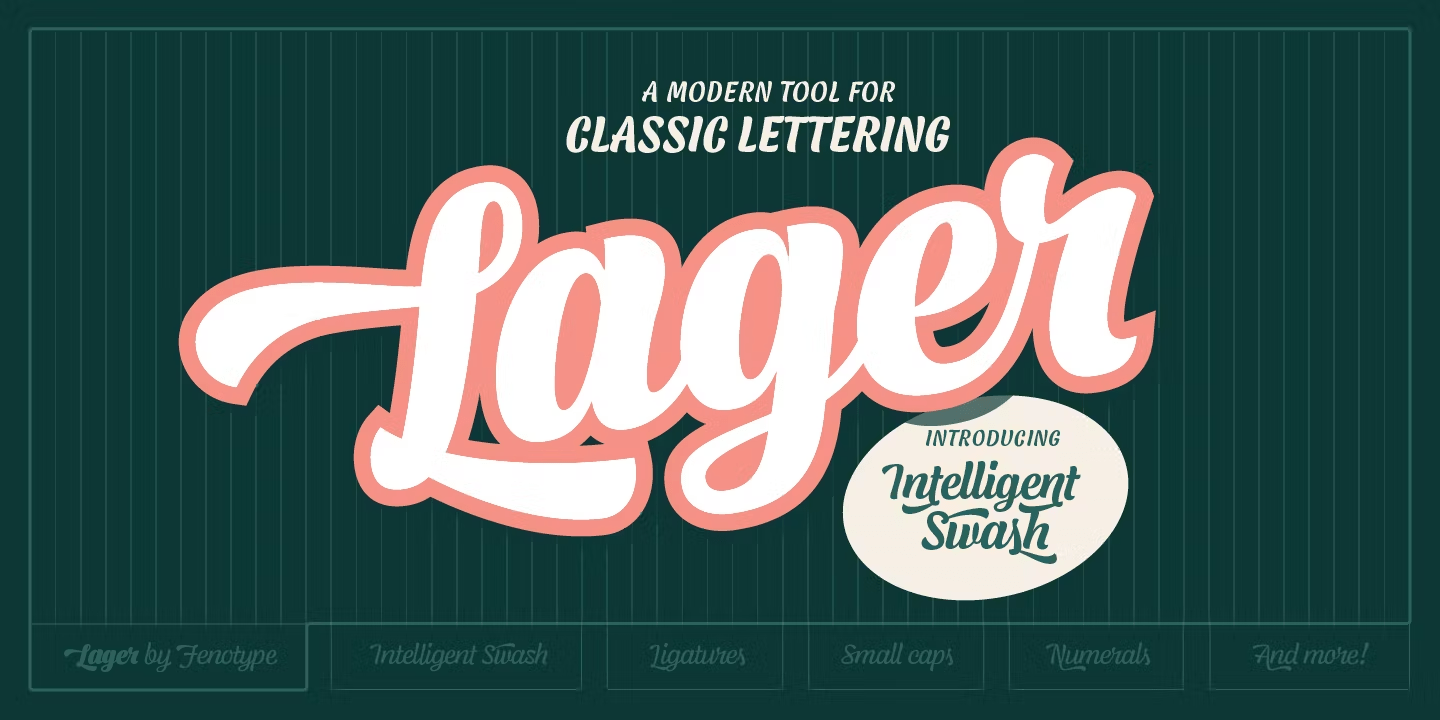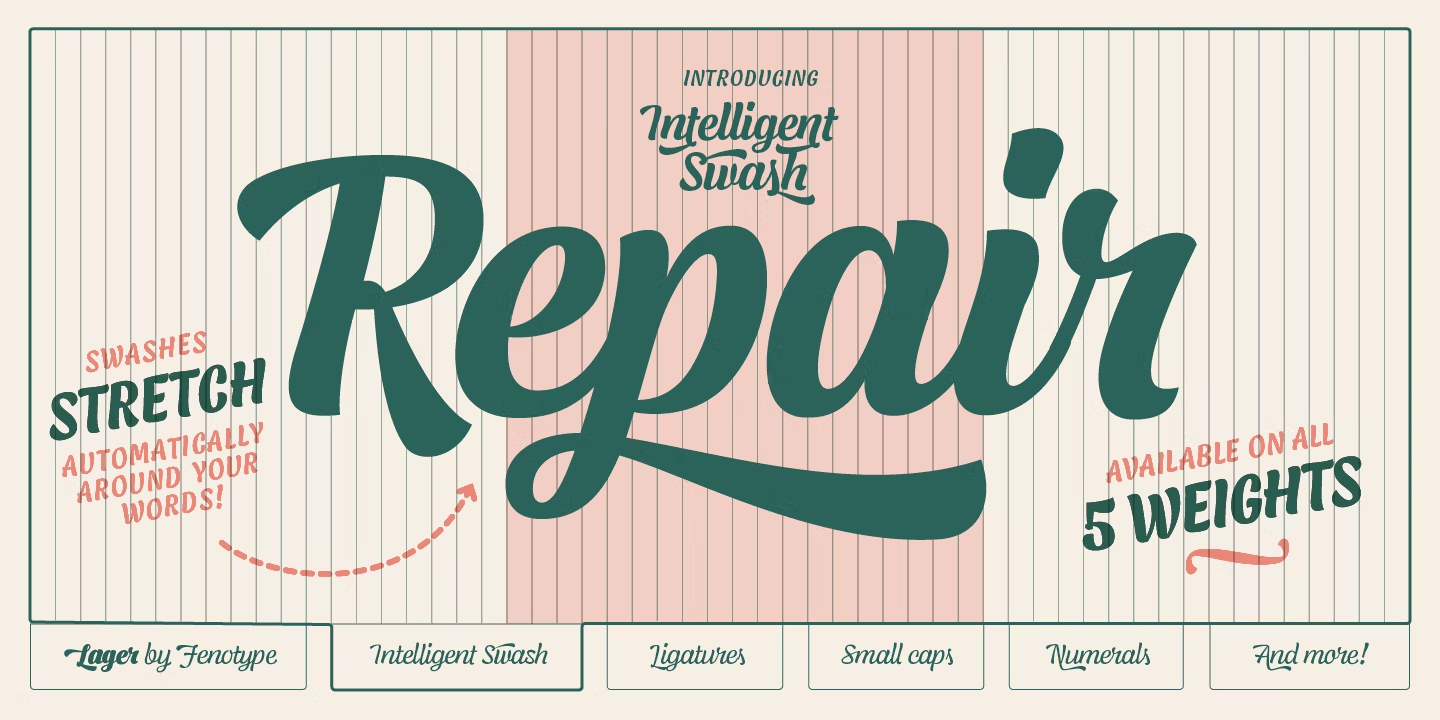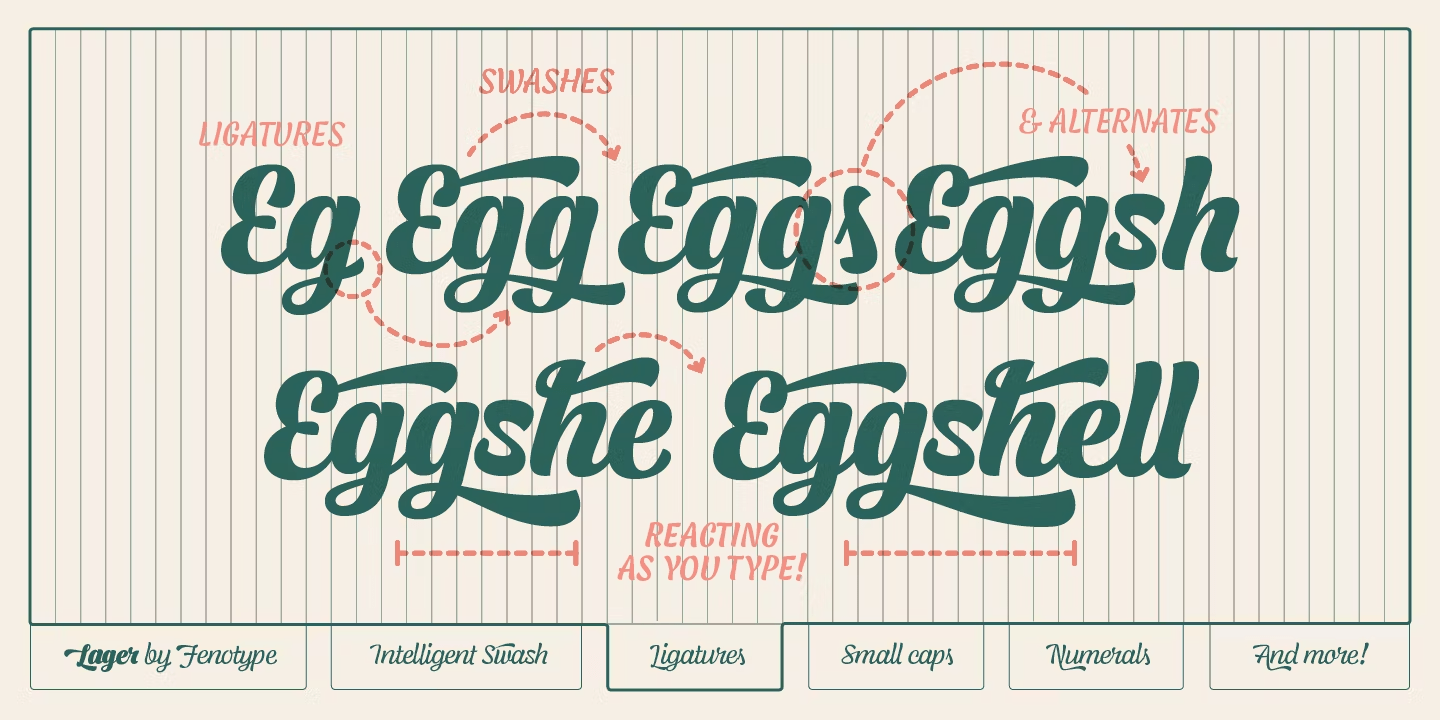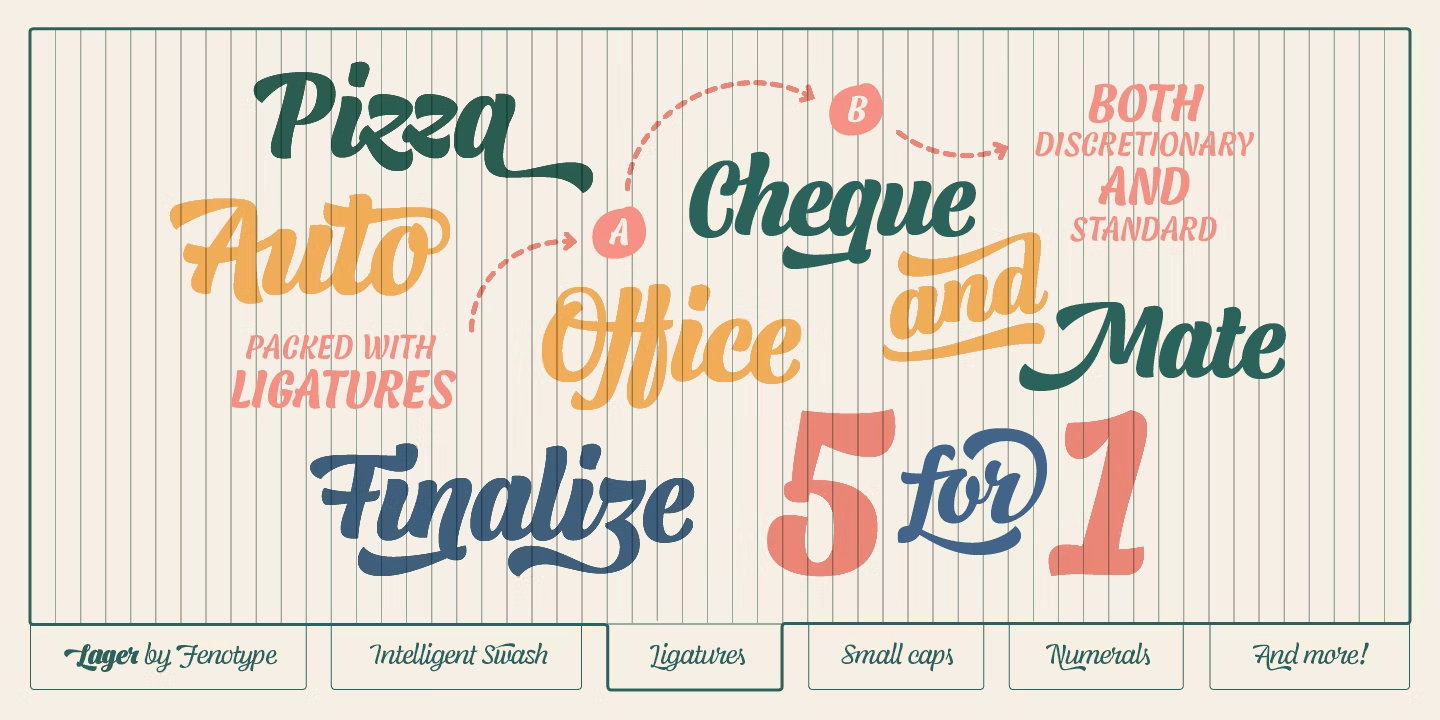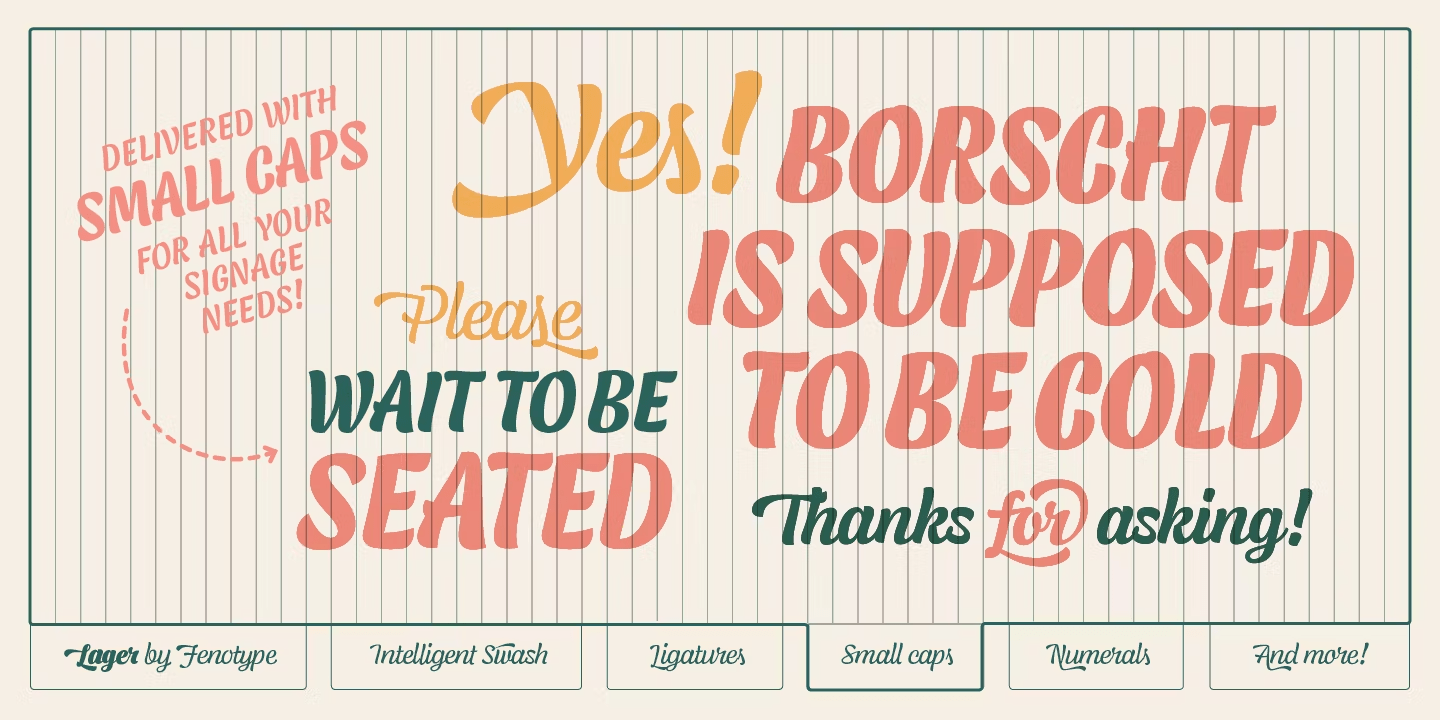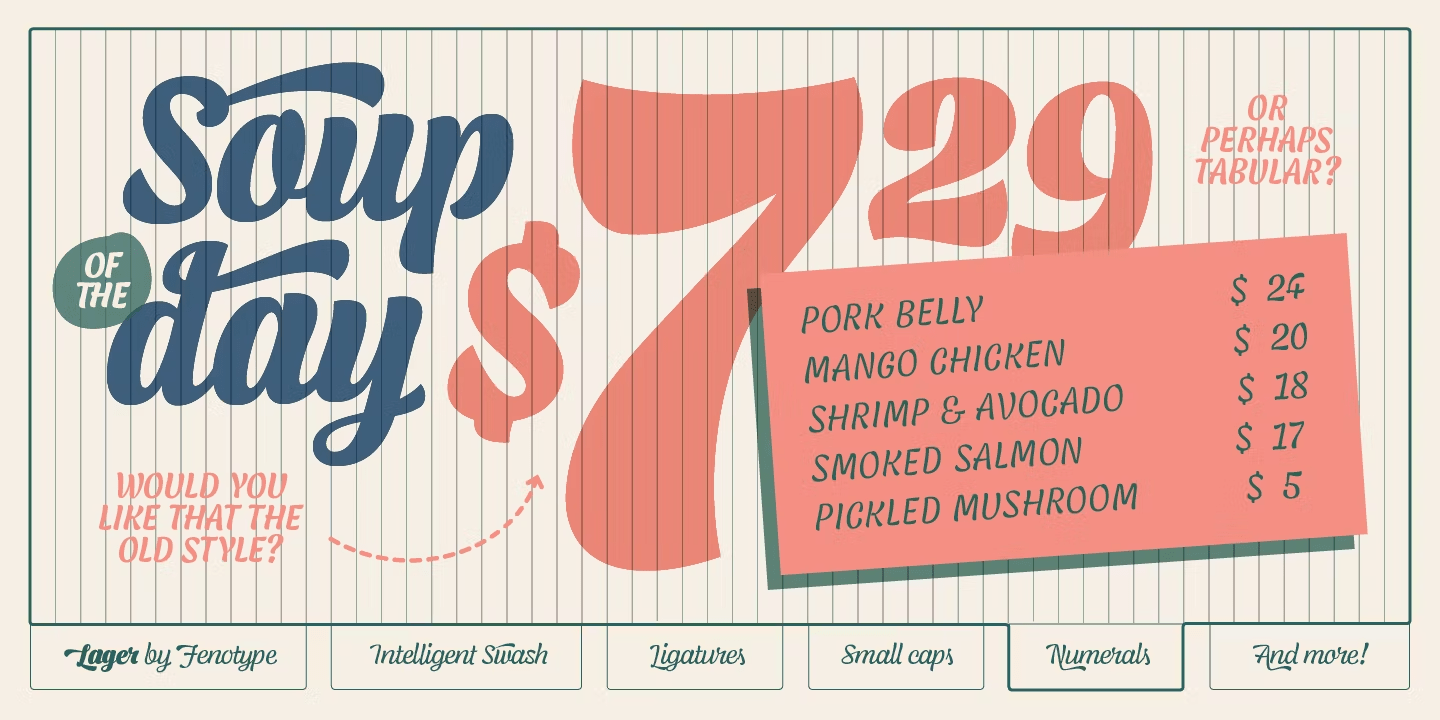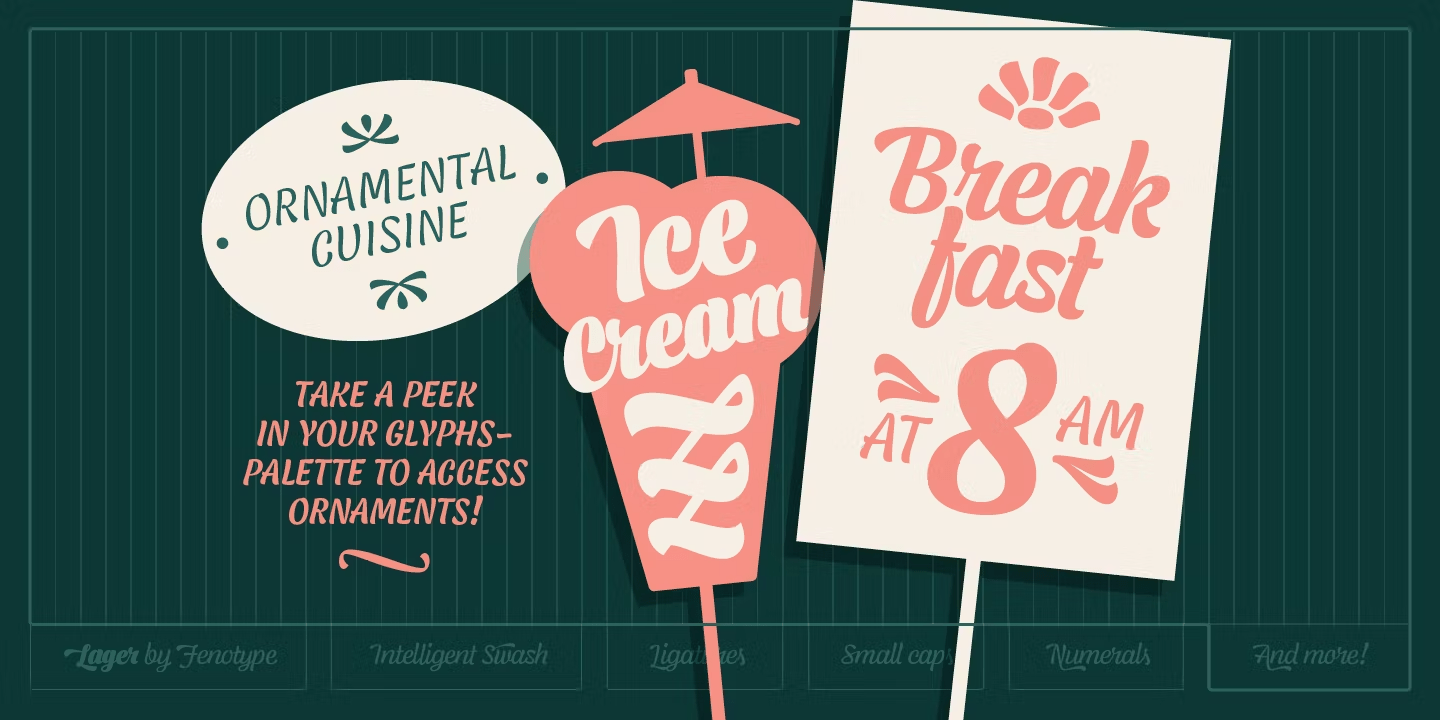
Lager is a plump, sympathetic and tasty script family inspired by good old American commercial lettering of mid-1900s – yet there’s more to it than meets the eye. Implemented with an exceptional feature called Intelligent Swash Lager delivers perfected results with an handmade feel. Depending on the choice of letters Intelligent Swash grows and stretches swashes automatically. Accompanied by various ligatures and stylistic alternates, Lager creates beautifully completed words with minimal effort. Just make sure you activate Titling Alternates from your OpenType-menu.
The Lager package will be delivered with 5 complete weights, 2 sets of well-groomed numerals and Small Caps as a great companion for the script style.
Get high on Lager, it won’t leave you short.